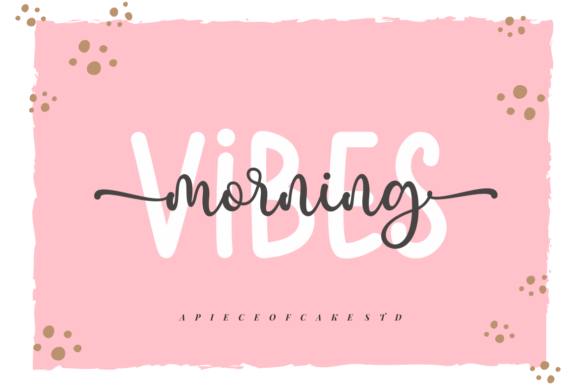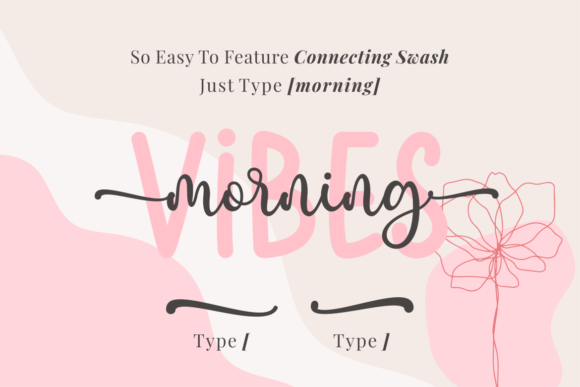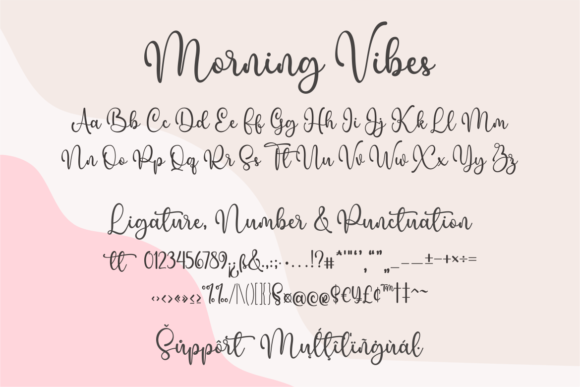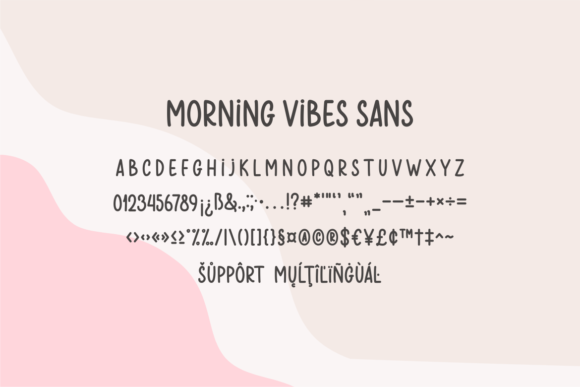
Morning Vibes Duo Font
About the Morning Vibes Duo Font
Add a touch of class to your work with the Morning Vibes Duo Font, a truly exceptional typeface. Morning Vibes Duo is a stylish and delicate duo font (script and sans serif) suitable for a wide spectrum of applications. From greeting cards to headlines, this font will guarantee a romantic touch to each of your creations!
Its delicate script and airy sans-serif pair best for projects needing a touch of romantic elegance. Ideal applications include wedding invitations, branding for boutiques, or product packaging for beauty or lifestyle brands. Use the script for headlines and short phrases, and the sans-serif for supporting text. Avoid using the script for large blocks of text; it’s best suited for short, impactful statements.
The Morning Vibes Duo is less suitable for body copy or UI elements where high readability is crucial. Its decorative nature could hinder legibility in long-form content.
Pairing the script with a clean, geometric sans-serif like Montserrat for a modern feel, or a classic serif like Garamond for a more timeless look, would create balanced and visually appealing designs. A playful yet refined pairing could be achieved with a rounded sans-serif such as Lato.
Morning Vibes Duo Font Usage Examples
Morning Vibes Duo Font Example